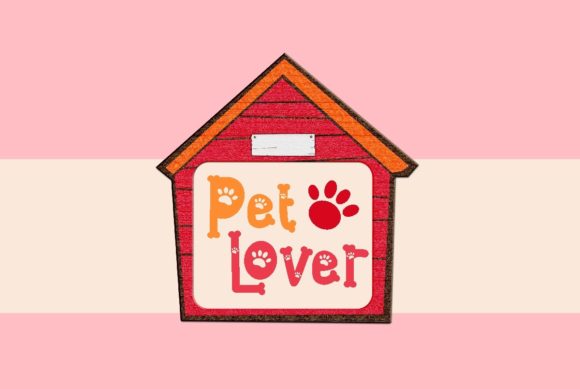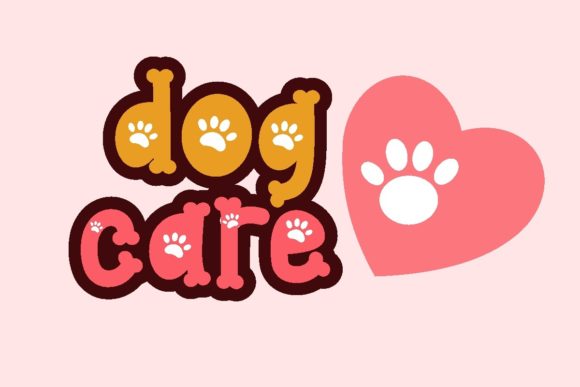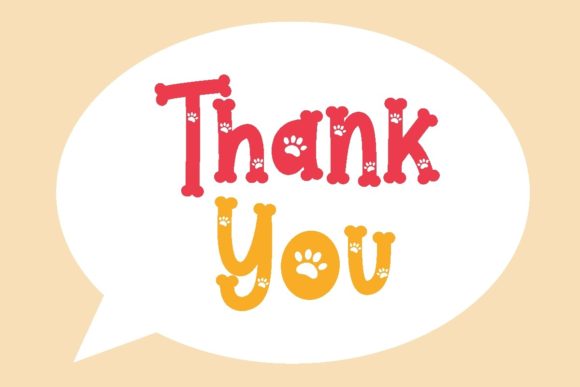
Introducing Doggy Dog Font: The Ultimate Playful Typeface for Kids’ Designs
Are you a designer or crafter looking for a font that can add a touch of playfulness and fun to your children’s themed designs? Look no further than the Doggy Dog font! This adorable decorative font is specifically designed to bring a smile to kids’ faces and make your designs stand out.
What Makes Doggy Dog Font So Special?
Doggy Dog font is a one-of-a-kind typeface that boasts a unique, hand-drawn design that’s both cute and engaging. Its playful curves and lines make it perfect for use in a variety of kids’ designs, from party invitations and birthday cards to children’s books and educational materials.
Perfect for Kids’ Designs
When it comes to designing for kids, it’s essential to create a visually appealing and engaging experience. Doggy Dog font is specifically designed with this in mind. Its fun and playful vibe makes it an ideal choice for:
• Children’s party invitations and decorations
• Kids’ birthday cards and gift tags
• Children’s books and storytime materials
• Educational resources and worksheets
• Kids’ clothing and accessories
Why Pair Doggy Dog Font with Bright Colors?
To take your designs to the next level, pair Doggy Dog font with bright, bold colors that kids love. The font’s playful design looks amazing when combined with vibrant hues, creating a visually stunning effect that’s sure to capture kids’ attention. Some popular color combinations include:
• Bright pink and blue for a fun, playful look
• Yellow and orange for a happy, sunny feel
• Green and purple for a fresh, creative vibe
Tips for Using Doggy Dog Font
To get the most out of Doggy Dog font, here are some tips to keep in mind:
• Use it for headlines and titles to add a playful touch
• Experiment with different colors and textures to add depth and interest
• Pair it with simple, clean fonts for body text to create contrast
• Don’t be afraid to get creative and try out new and unusual design combinations
What You’ll Love About Doggy Dog Font
Here are just a few things you’ll love about Doggy Dog font:
• Unique, hand-drawn design that’s both cute and playful
• Perfect for kids’ designs, from party invitations to educational materials
• Easy to read and use, even for younger designers and crafters
Get Ready to Fall in Love with Doggy Dog Font
If you’re looking for a font that can add a touch of fun and playfulness to your kids’ designs, Doggy Dog font is the perfect choice. With its unique, hand-drawn design and endless possibilities for creative expression, this font is sure to become a favorite in your design toolkit. So why wait? Download Doggy Dog font today and get ready to create some amazing kids’ designs!
In conclusion, Doggy Dog font is a playful, fun, and cute decorative font that’s perfect for children themed designs. Its unique design, paired with bright colors, makes it an ideal choice for designers and crafters looking to create engaging and visually appealing materials for kids. With its ease of use and versatility, Doggy Dog font is sure to become a go-to font in your design arsenal.